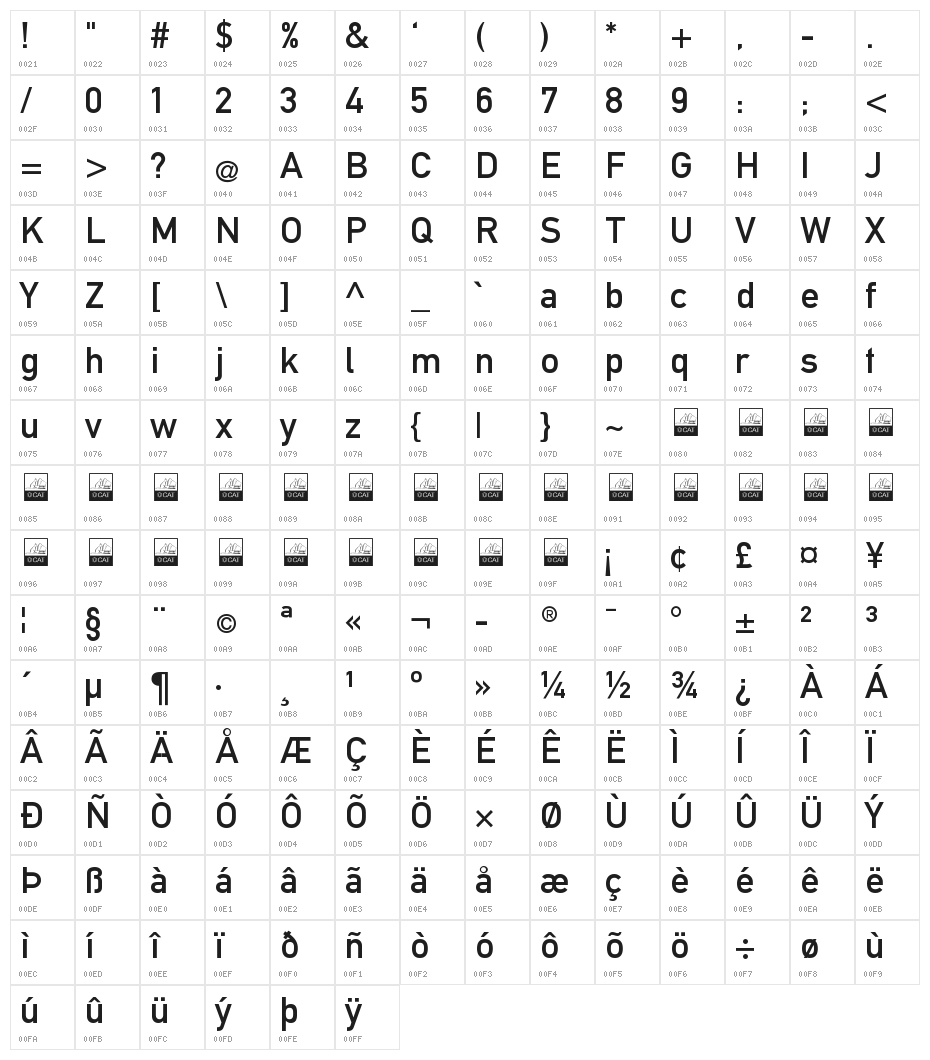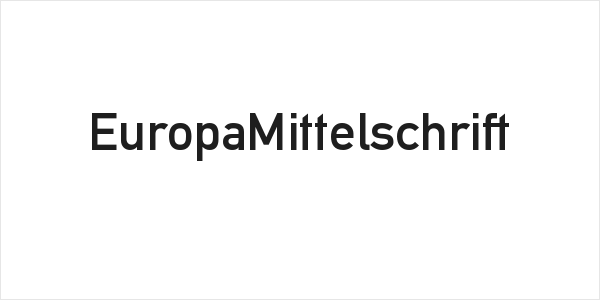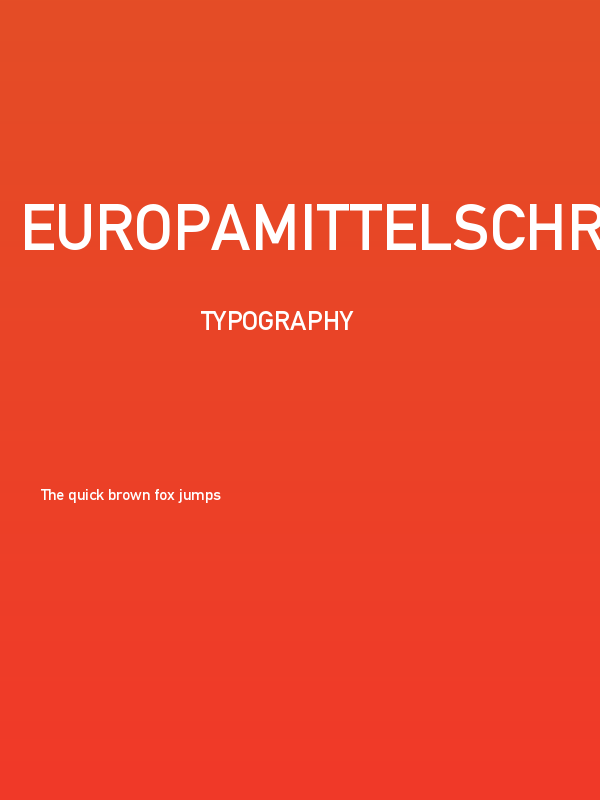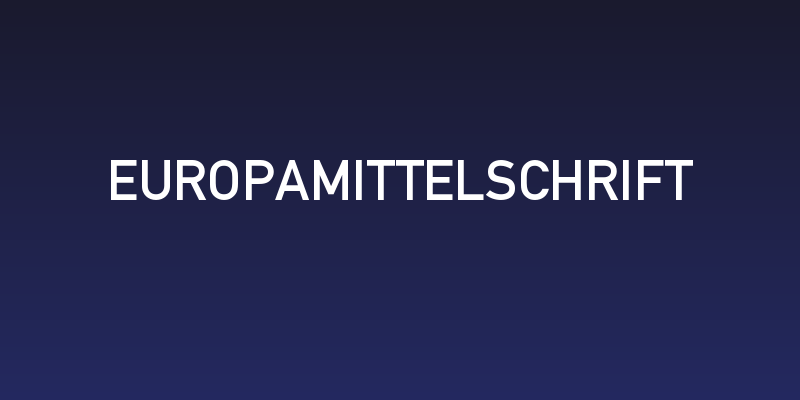
EuropaMittelschrift Font
EuropaMittelschrift Description
This font features a clean and modern sans-serif design with uniform stroke widths, providing a balanced and professional appearance. The characters are well-proportioned, offering excellent readability across both uppercase and lowercase letters. The numerals and special characters maintain the same clarity and simplicity, making it versatile for various applications. Its geometric structure and even spacing contribute to a harmonious and contemporary look, suitable for digital and print media. The font's straightforward style ensures it remains legible at different sizes, making it ideal for both headlines and body text.